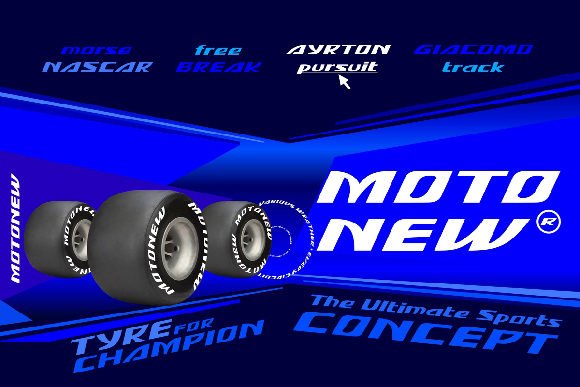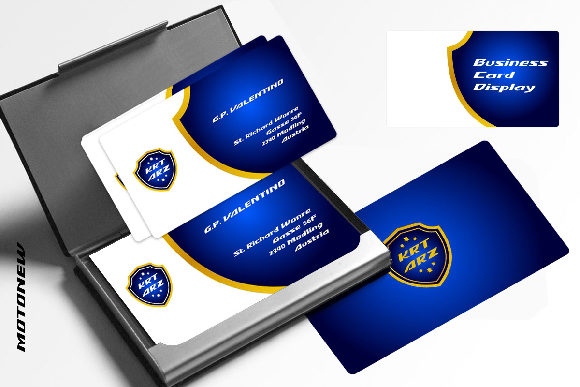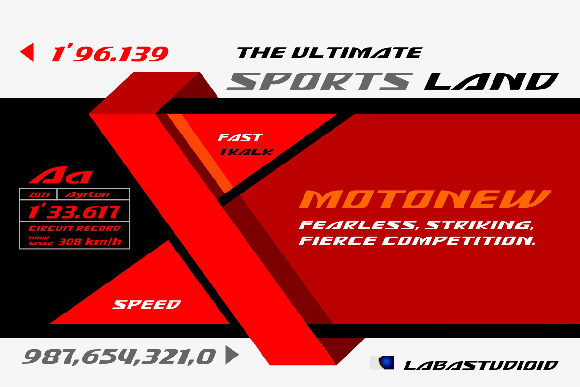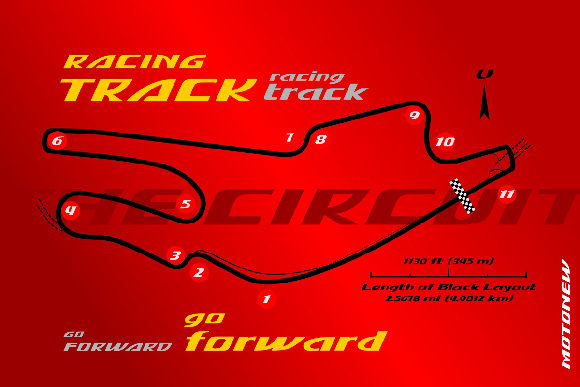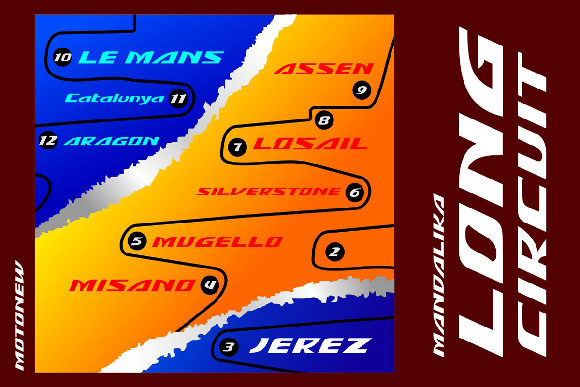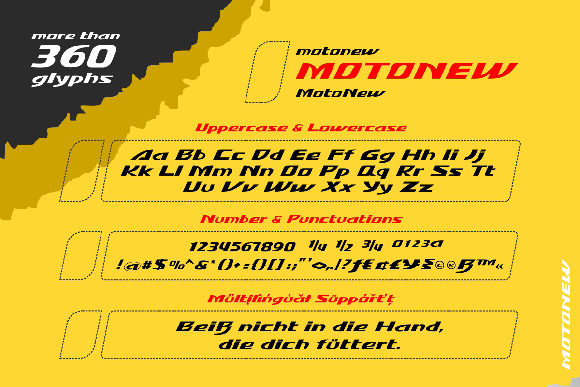
Introduction to MotoNew Font
Have you ever been working on a creative project, pouring your heart and soul into it, only to feel like something’s missing? That’s exactly what happened to me when I was designing a sports-themed campaign. I wanted to convey the energy and excitement of racing, but the font just wasn’t cutting it. That’s when I stumbled upon MotoNew Font, a fun, bold, and strong lettered display font that took my design to the next level.
MotoNew Font is more than just a design resource – it’s a game-changer. Its high-quality design and transparent background make it the perfect addition to any sport or racing design. And the best part? It’s completely free to download, making it an invaluable asset for designers on a budget.
Whether you’re a seasoned pro or just starting out, MotoNew Font is sure to bring your ideas to life. So why settle for a mediocre font when you can have one that’s as bold and exciting as the projects you’re working on?
- Unique characteristic: MotoNew Font features a modern, minimalist design with clean lines and a touch of elegance, making it perfect for a wide range of creative projects.
Honest Review: MotoNew Font
I recently had the chance to work with MotoNew Font on a creative project and I must say, it’s been a great addition to my design resource collection. The font’s high quality and sleek design made it a perfect fit for the modern aesthetic I was going for.
Here are some things that I think work well with MotoNew Font:
- ✨ Clean and minimalist design that makes it easy to read and use in various contexts.
- ✨ Transparent background, making it easy to customize and pair with other design elements.
- ⚠️ Limited character set, which may not be suitable for projects that require a wide range of characters.
- ⚠️ Not all browsers may support the font, which can be a issue for web designers.
Overall, I’m impressed with MotoNew Font and would definitely recommend it for designers looking for a high-quality, free font. With a little creativity and experimentation, it can be a valuable addition to any design project.
Tips for Getting the Most Out of MotoNew Font
Use MotoNew Font in conjunction with a transparent background to create a clean and modern design. Experiment with different font sizes and styles to add visual interest to your project. You can also use MotoNew Font as a design resource for your creative project, pairing it with other high-quality fonts and graphics.
MotoNew Font is a versatile font that can be used for a variety of purposes, including branding, marketing materials, and website design. Its high quality and modern design make it an ideal choice for designers and creatives working on a free download project.
Yes, MotoNew Font is designed to be high-quality and suitable for use in print projects. The font is optimized for use at large sizes and high resolutions, ensuring that it looks great on paper or other printing materials.